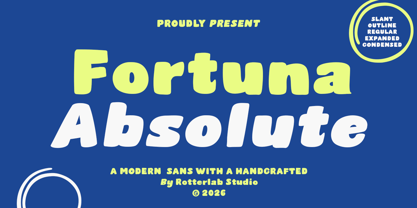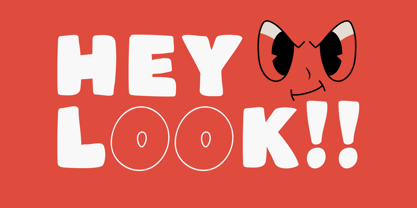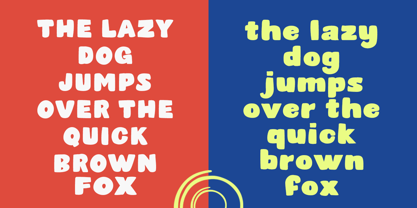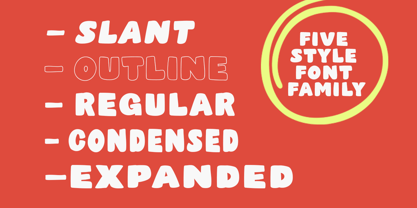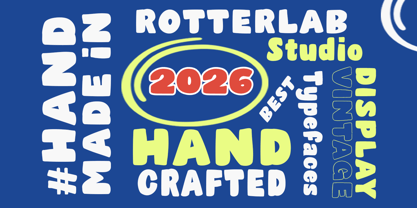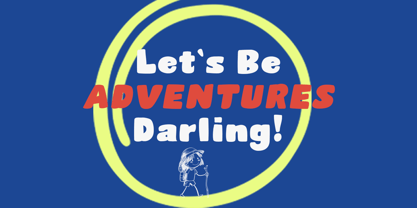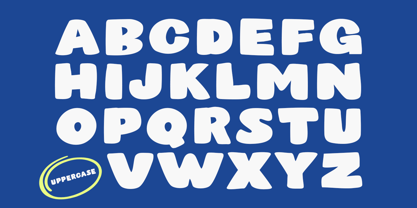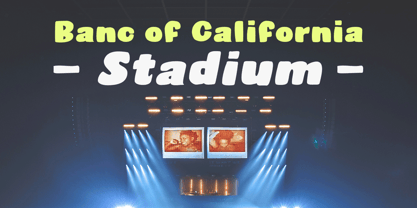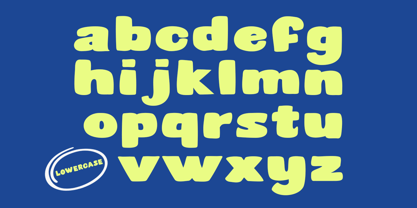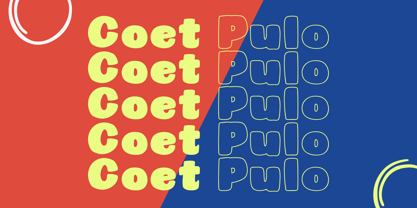
Fortuna Absolute
von Rotterlab Studio
Die Schriftfamilie Fortuna Absolute wurde von Sidiq Fahmi entworfen und von Rotterlab Studio veröffentlicht. Fortuna Absolute enthält 5 Stile und Familienpaketoptionen.
Fortuna Absolute is a modern sans-serif display typeface with a bold, handcrafted character. Featuring rounded shapes and strong letterforms, it delivers a playful yet clean look that stands out across creative projects. The family includes 5 styles: Regular, Slant, Outline, Expanded, and Condensed, offering flexibility for branding, logos, posters, packaging, social media graphics, and editorial headlines. Designed for both print and digital use, Fortuna Absolute combines visual impact with reliable readability. Features: Uppercase & lowercase letters Numerals & punctuation Multiple styles included Display-focused sans-serif Suitable for print & digital projects Happy creating and if you've any wish or suggestion, let me know any time!